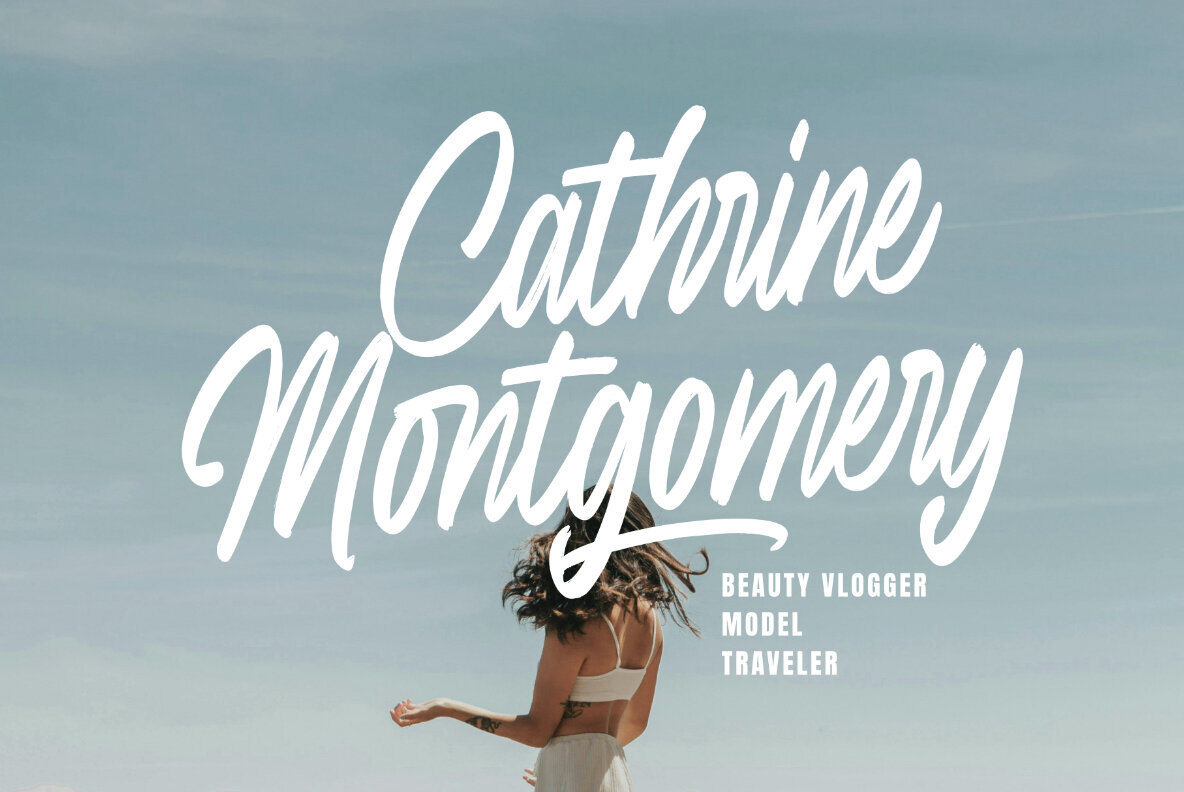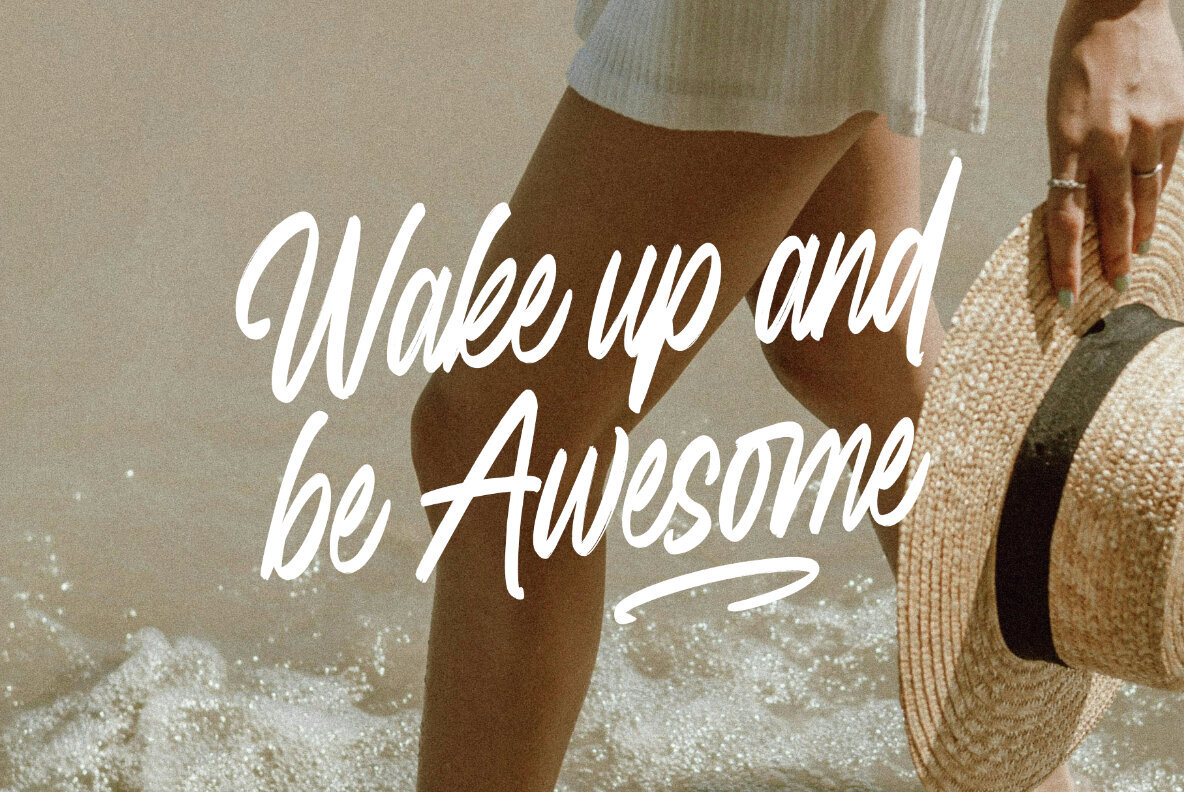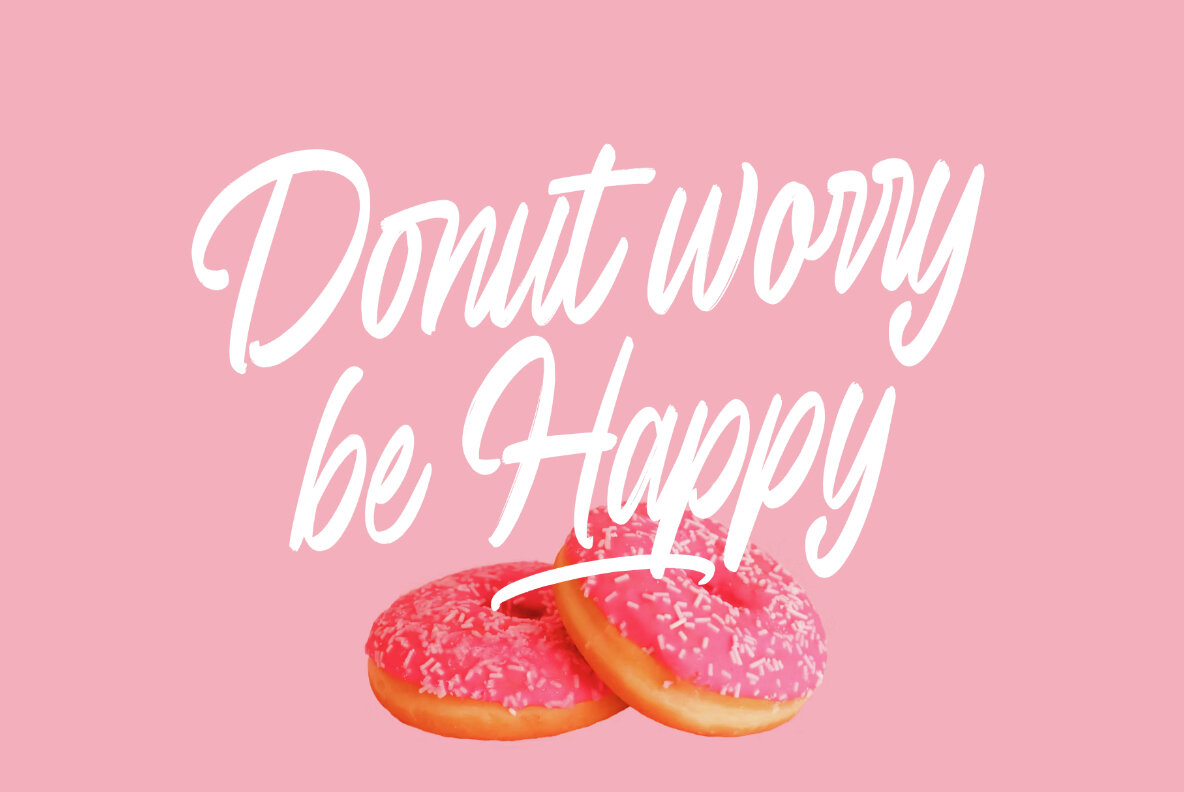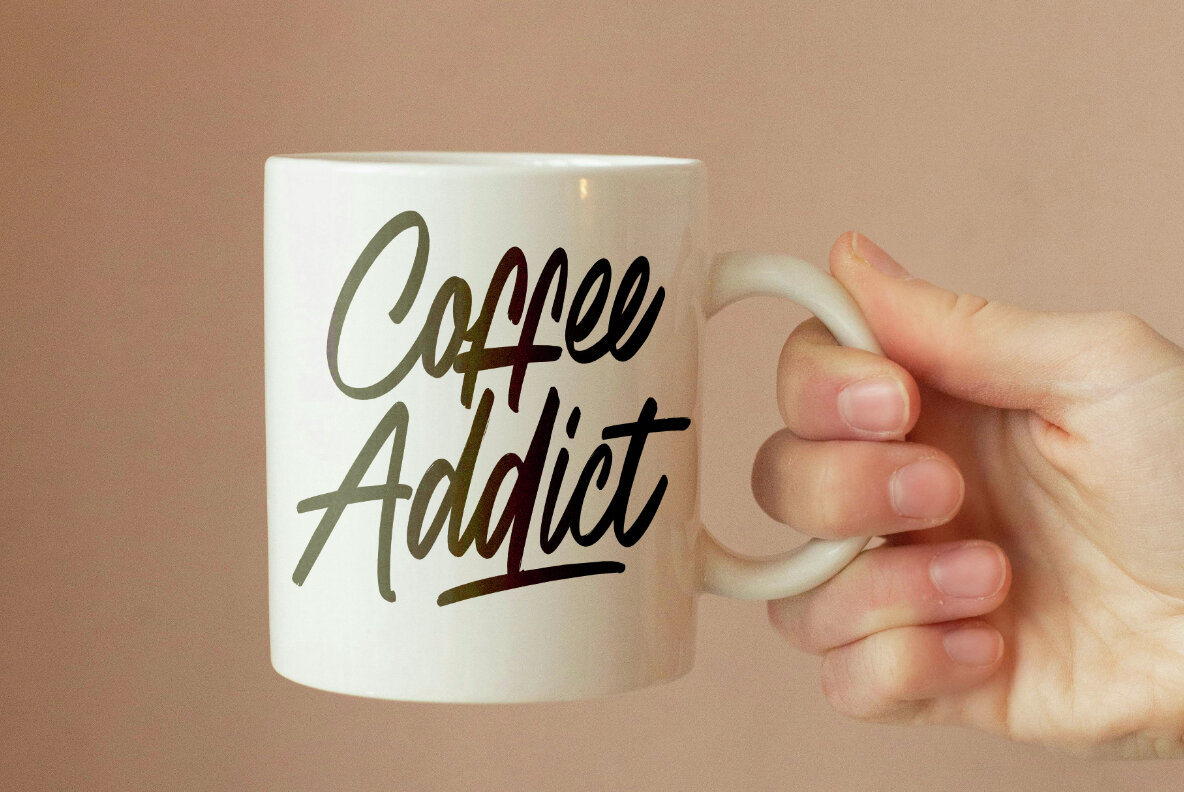
Sweet Cherice Font
Sweet Cherice Regular
Sweet Cherice is a cool and casual brush typeface that brings a playful and energetic vibe to your designs. With its bold, hand-drawn strokes and dynamic letterforms, this font captures the spontaneity and charm of real brush writing. Ideal for projects that seek to convey a relaxed and friendly atmosphere, Sweet Cherice adds a touch of fun and personality to every creation.
This font excels in adding a unique flair to a variety of design applications, from posters and invitations to social media graphics and branding projects. The organic and spontaneous look of Sweet Cherice makes it a versatile choice, ensuring your designs stand out with a warm and engaging tone.